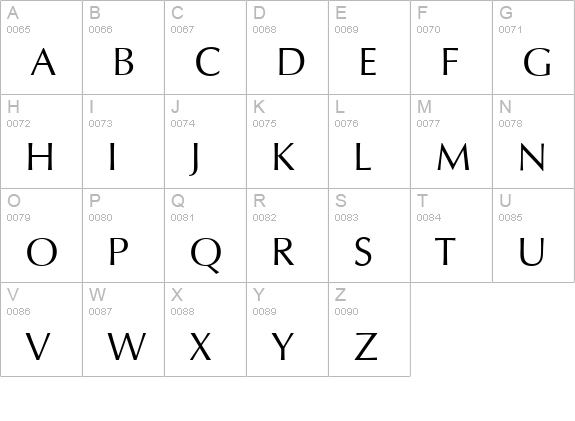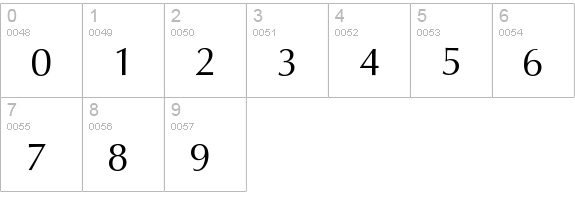
Opus-Regular is the standard, neutral variant in the Opus typeface family \xE2\x80\x94 well suited to general body text, paragraphs, and standard typographic work.
Opus-Regular is a versatile and modern typeface that exudes elegance and sophistication. With its clean lines and balanced proportions, this font is perfect for a wide range of design projects, from branding to editorial layouts. The timeless appeal of Opus-Regular makes it a popular choice among designers looking for a classic yet contemporary font. One of the best features of Opus-Regular is that it is available for free download at FontsMarket.com. This means that you can easily access this high-quality font without any cost, making it a valuable addition to your font library. Whether you're working on a personal project or a professional design, Opus-Regular is sure to elevate your work with its polished and refined aesthetic. Overall, Opus-Regular is a must-have font for anyone looking to add a touch of sophistication to their designs. Its timeless appeal, modern sensibility, and free availability make it a standout choice for designers seeking a versatile and stylish typeface. Download Opus-Regular today and discover the endless creative possibilities it offers.